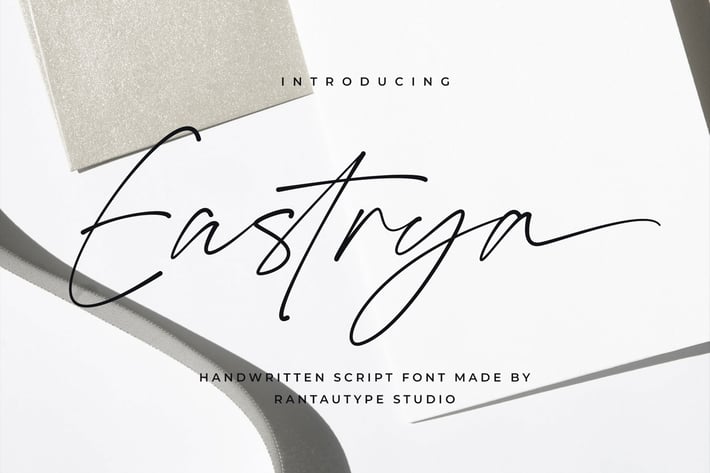
Eastrya Handwritten Script Font
Eastrya is elegant and classy handwritten font made with love and passion. Eastrya is a professional choice for any creative endeavor, creating elegant, modern, chic, lifestyle design such as logotype, title, cover, branding, invitations, wedding designs, display and magazine, social media posts, advertisements, printed quotes, product packaging, corporate brand, product designs, labels, photography, watermarks, special events and any other project with handwritten touch.
Standart Glyphs
Alternate and Ligature